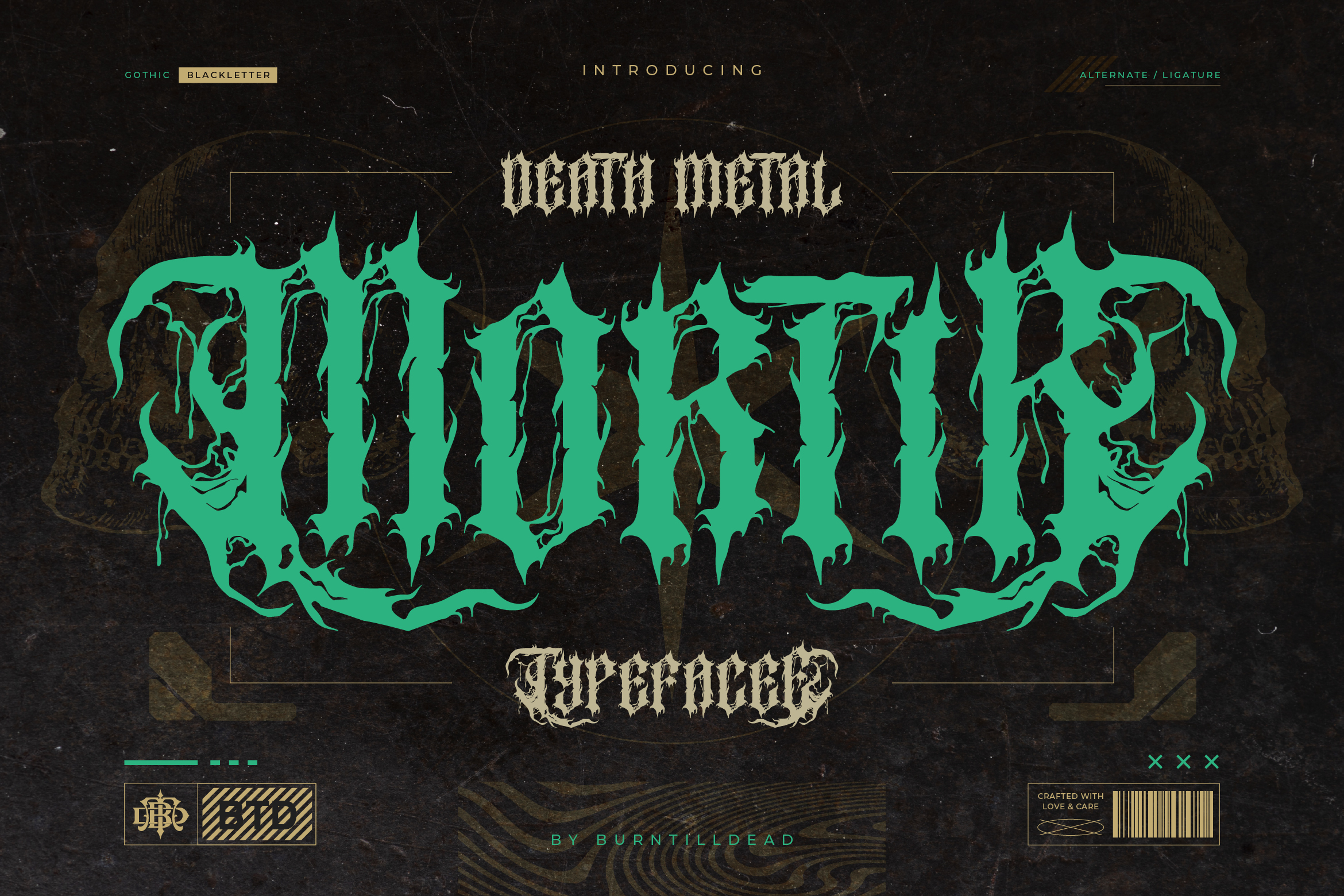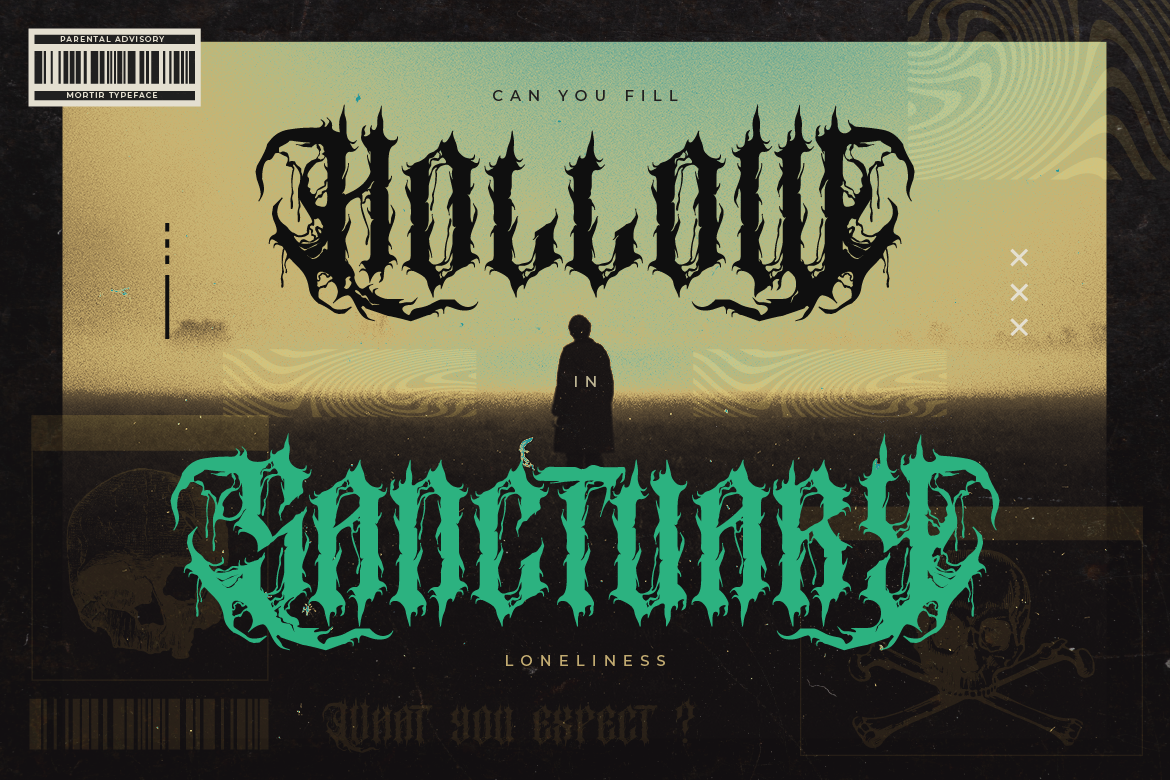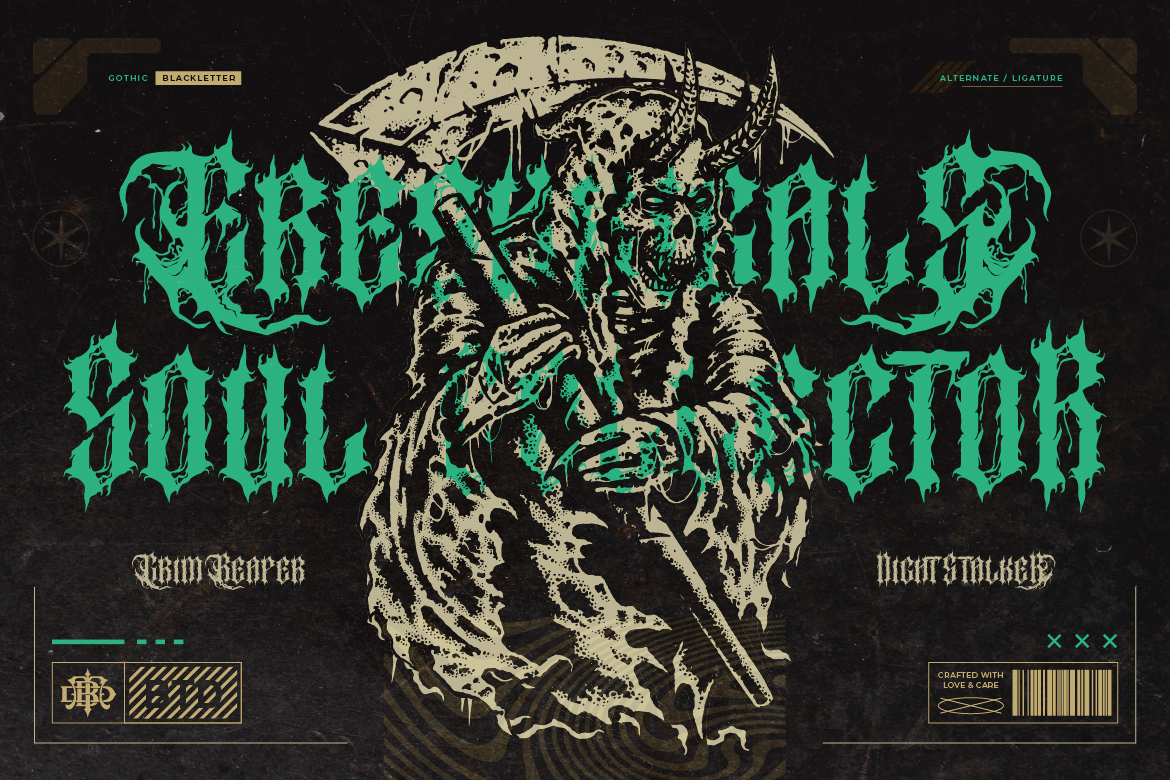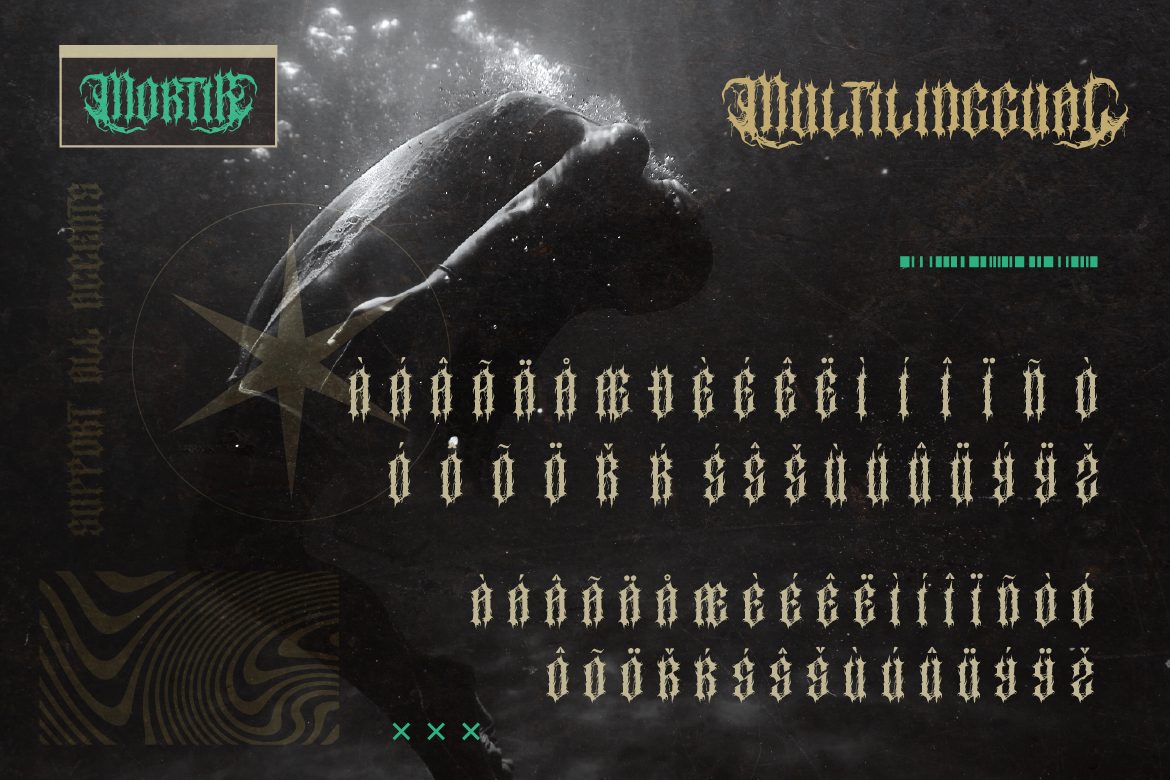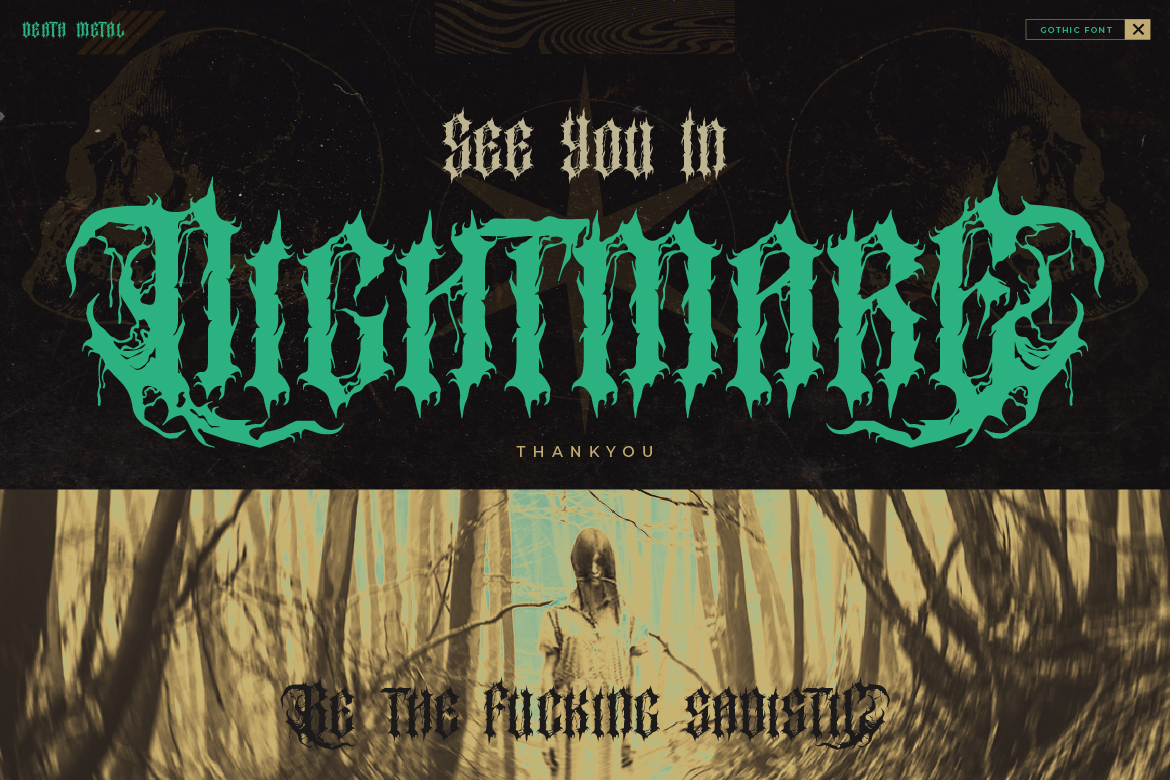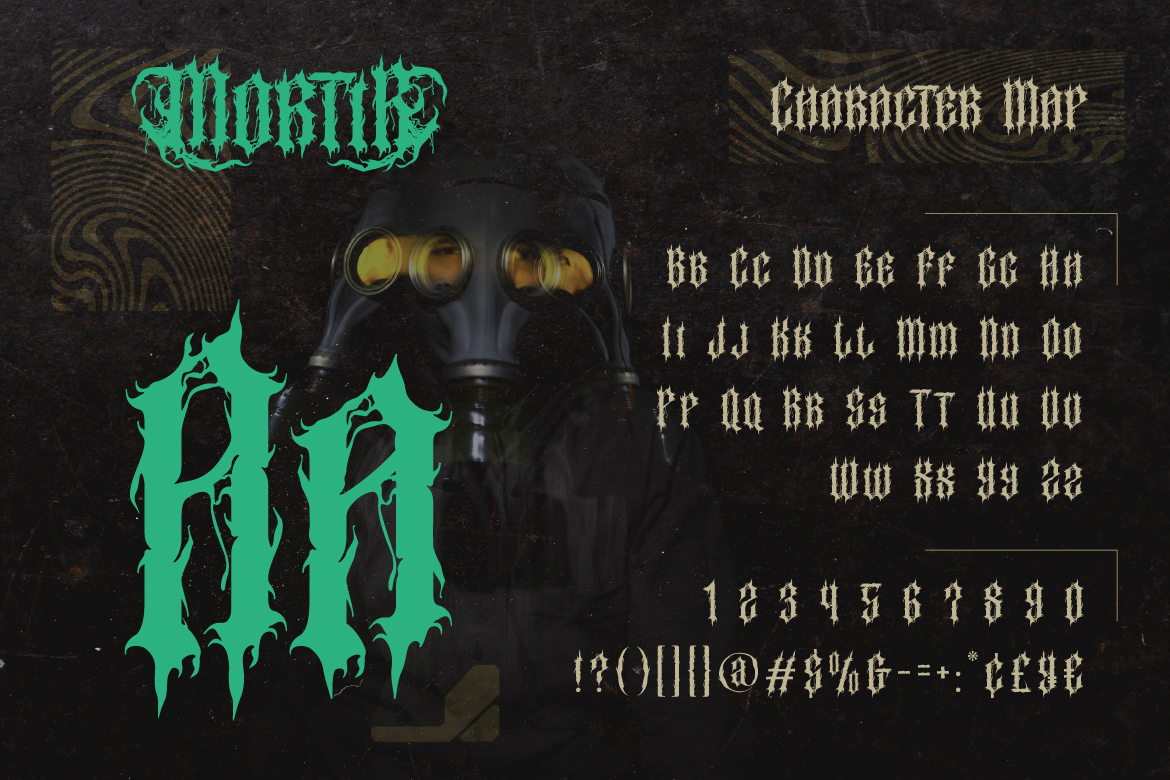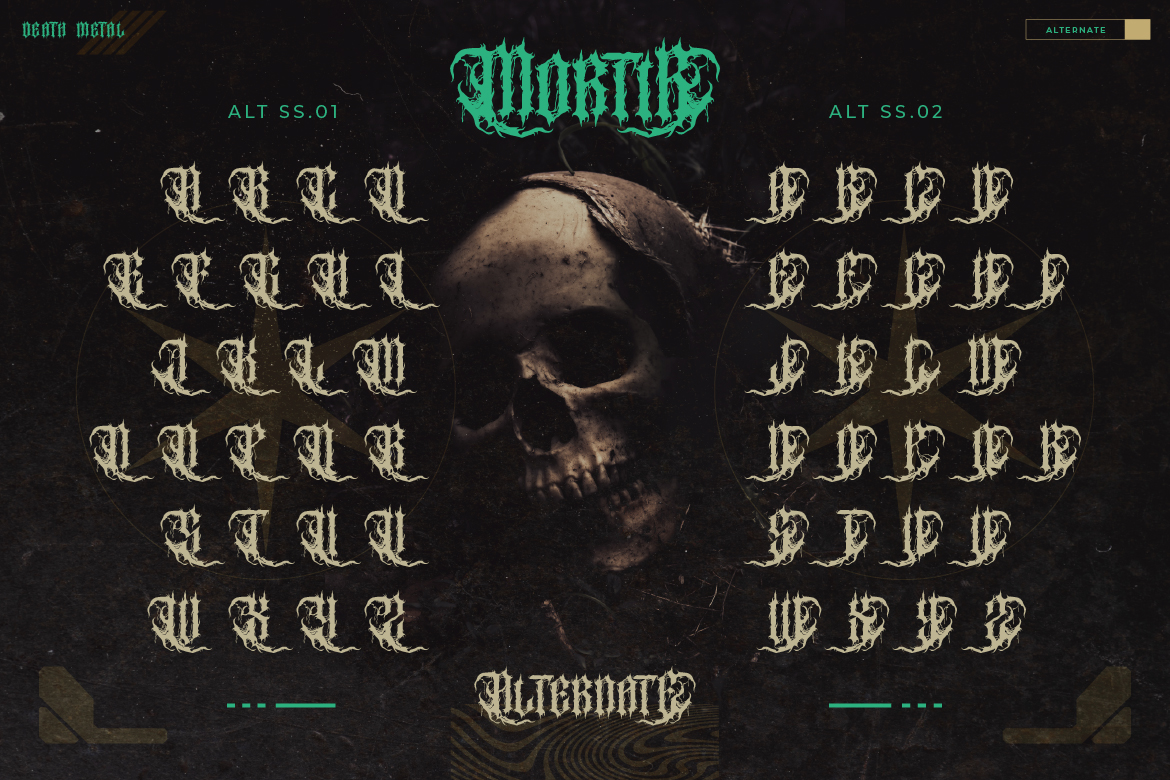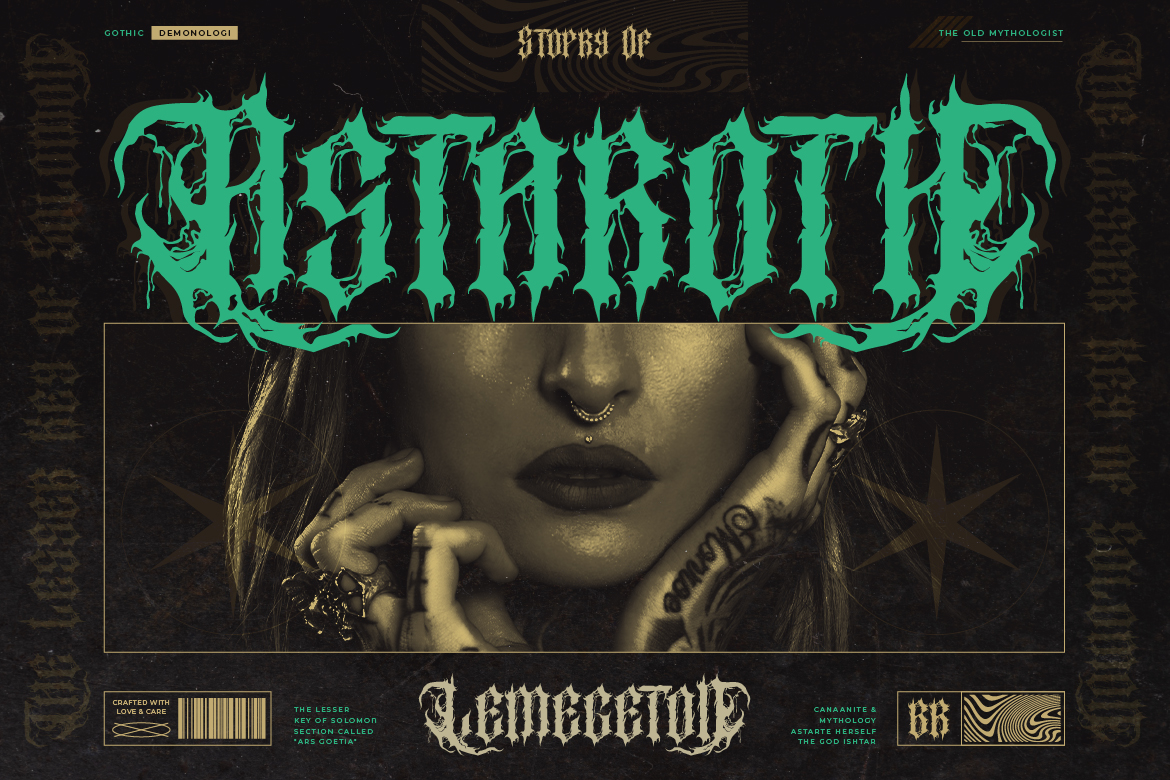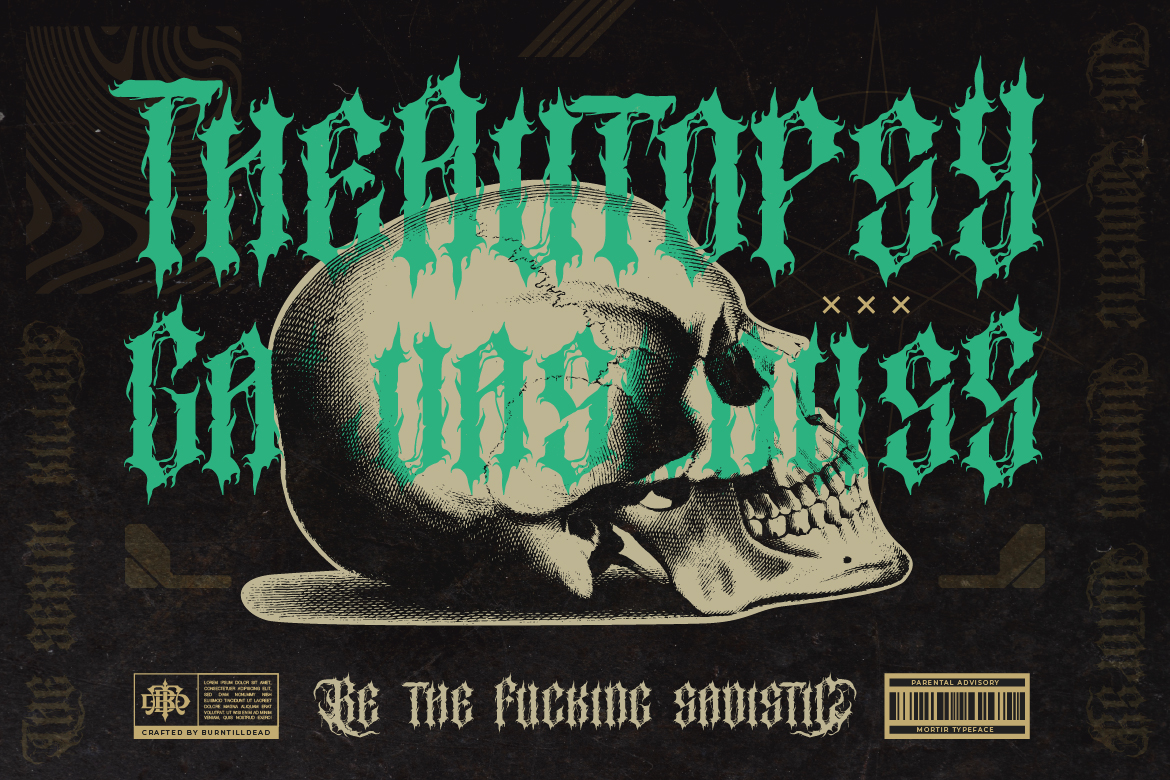
Mortir
Let us introduce you our death metal font, Mortir! This font bold, rugged, and often sharp-edged designs that embody the intensity and power of the metal music genre. And the feature twisted shapes and a sense of aggression, making them perfect for capturing the spirit of metal in visual form. Each letter exudes an aura of mystique and brutality, perfectly reflecting the atmospheric and sometimes ominous themes prevalent in black metal culture. These fonts are perfectly used in promotional materials for metal concerts, album artwork or cover, concert posters, branding and any design that requires a touch of death metal.
- Mortir Characters Map